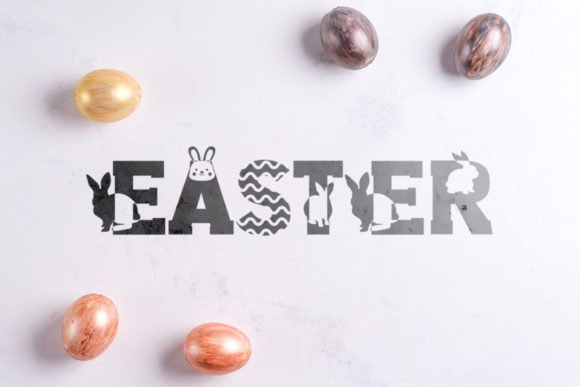
Introduction to Easter Font Font
Easter is an adorable quirky decorative font.
It will add an incredibly joyful touch to your designs Fall in love with its playful style and use it to create beautiful stationary art, eye-catching social media posts, and much more.